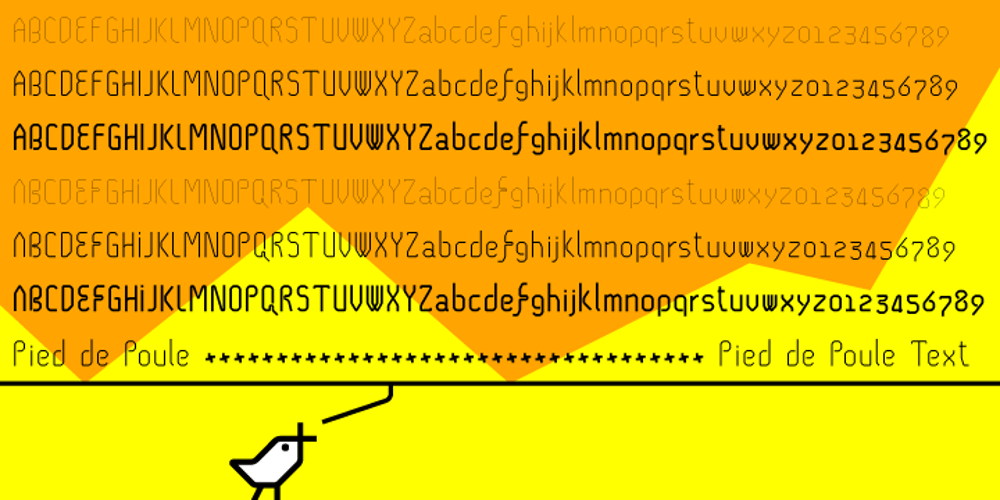
Pied de Poule Font Family was designed by published by studiocharlie. Pied de Poule contains 6 styles and family package options. Pied de Poule is a linear semi-geometrical font in three weights, expecially designed by studiocharlie to be used in applications concerning Art, Architecture or Technics. It is available in three versions: – Pied de Poule Text: ideal for small texts, such as paragraphs in books or magazines. – Pied de Poule: more designed lettering, ideal for big applications, like posters and headlines. – Pied de Poule Ornaments: contains a lot of ornaments you can use with other versions of Pied de Poule…